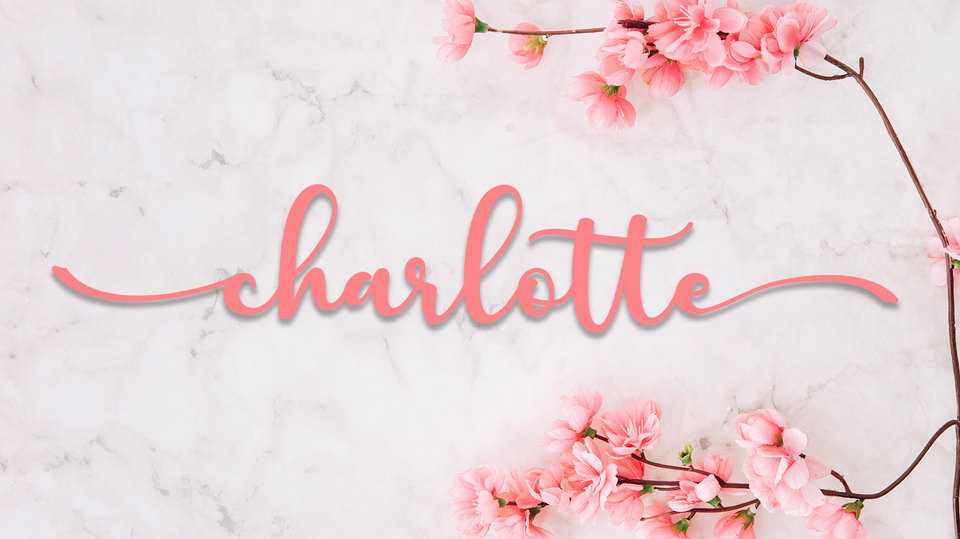
Charlotte is a beautiful modern script with a handmade calligraphy style and decorative characters. It perfectly suits for wedding and feminine design, fashion and apparel, social media and other graphics.
Designer: Uloel Design